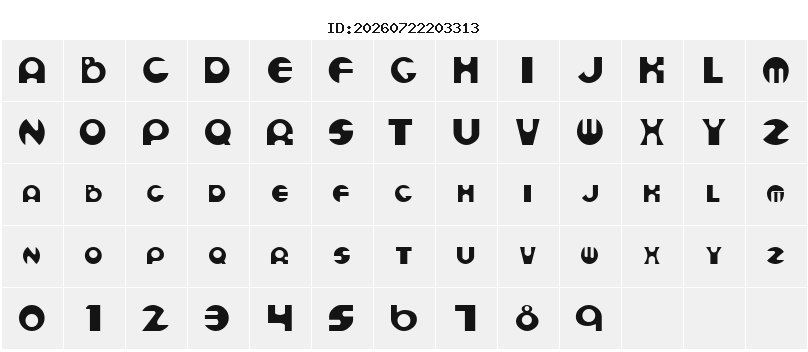
• Font Name: Mutant
• Font Style: Plain
• Full Font Name: Mutant Plain
About Mutant.ttf
Mutant.ttf is a modern, elegant sans-serif font designed for ultimate readability and visual harmony. Perfect for branding, headlines, web design, and print materials.